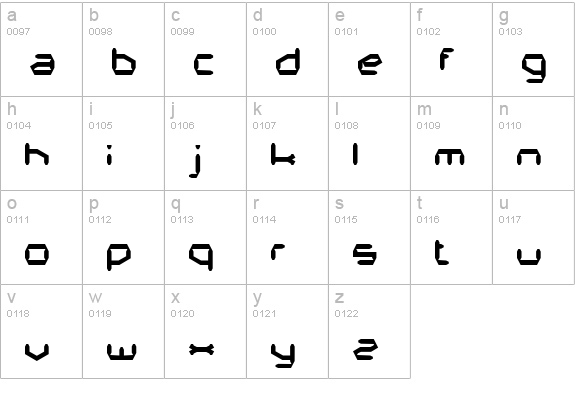
Flotsam Astronaut font is a whimsical and futuristic typeface that will take your design projects to new heights. This unique font features quirky letterforms with a playful twist, making it perfect for adding a touch of fun to any creative project. Whether you're working on a poster, logo, or website design, Flotsam Astronaut font is sure to stand out and capture attention. Best of all, Flotsam Astronaut font is completely free to download at FontsMarket.com. That's right, you can get your hands on this eye-catching font without spending a dime. So why wait? Download Flotsam Astronaut font today and let your creativity soar to infinity and beyond!